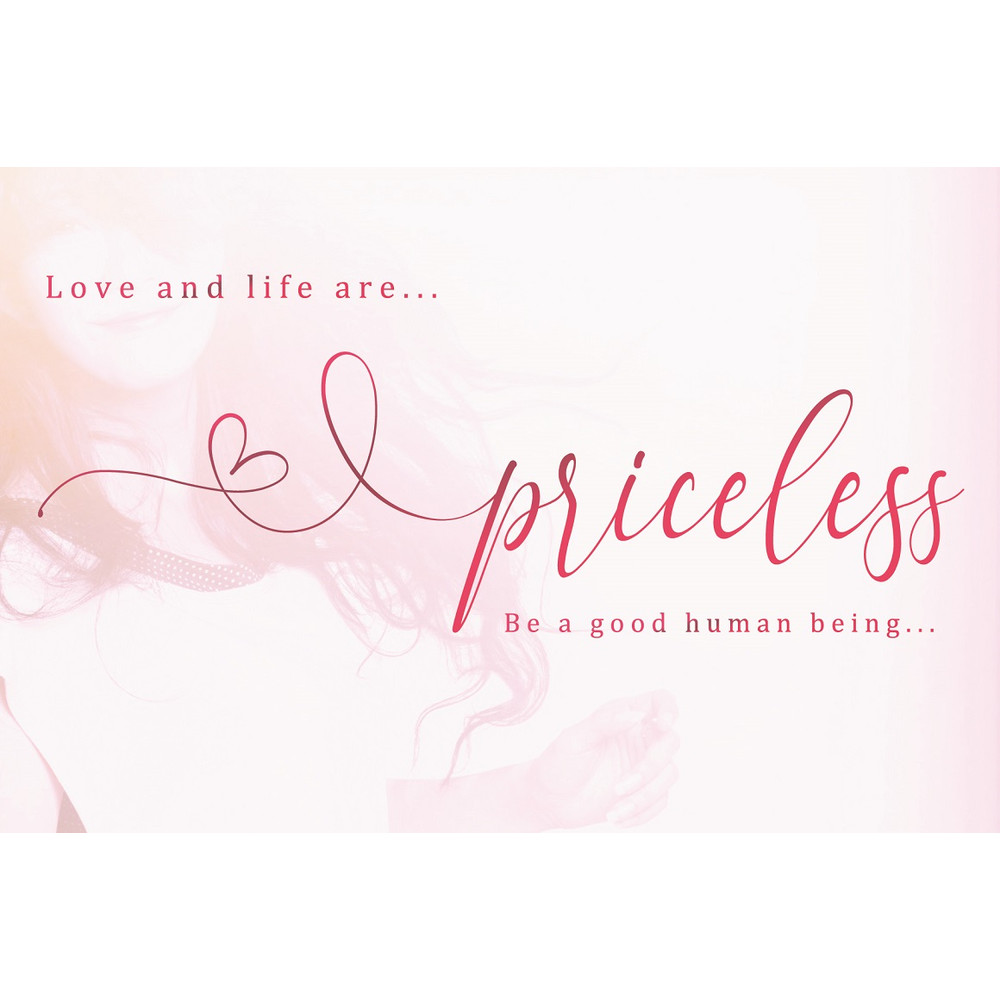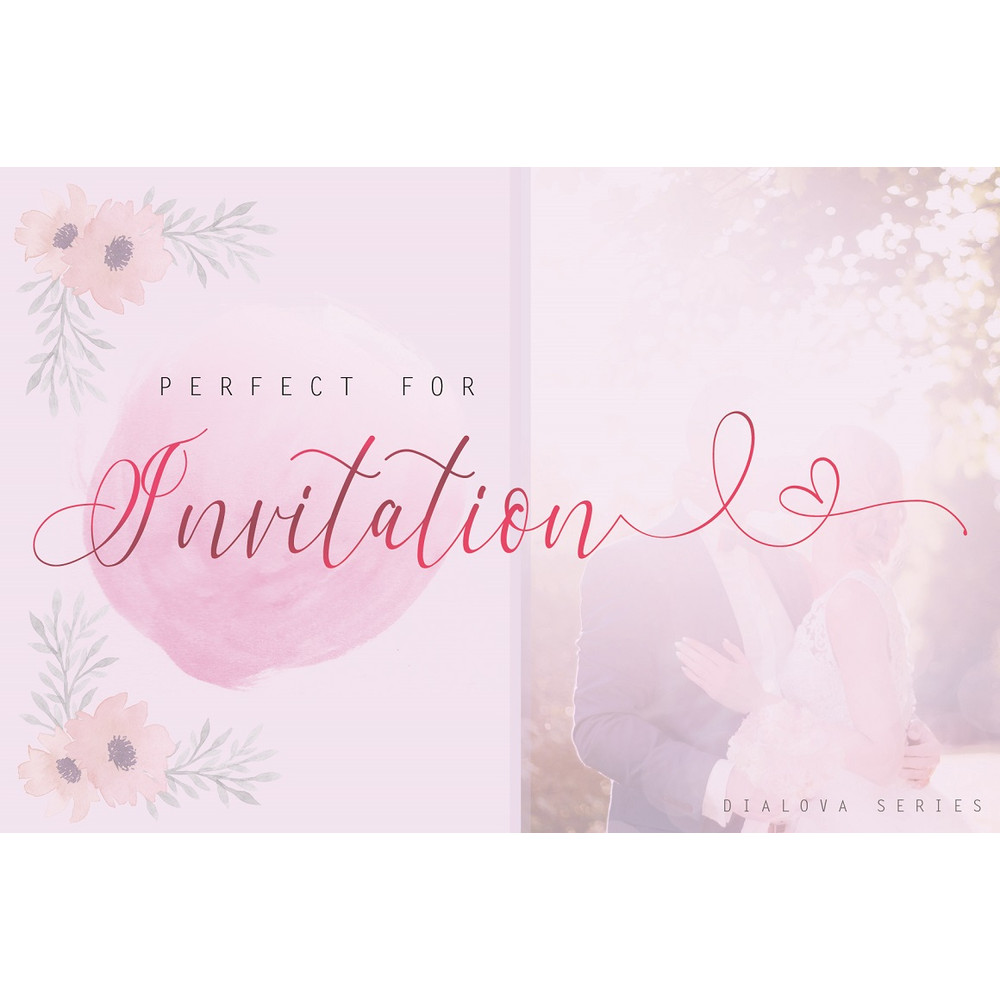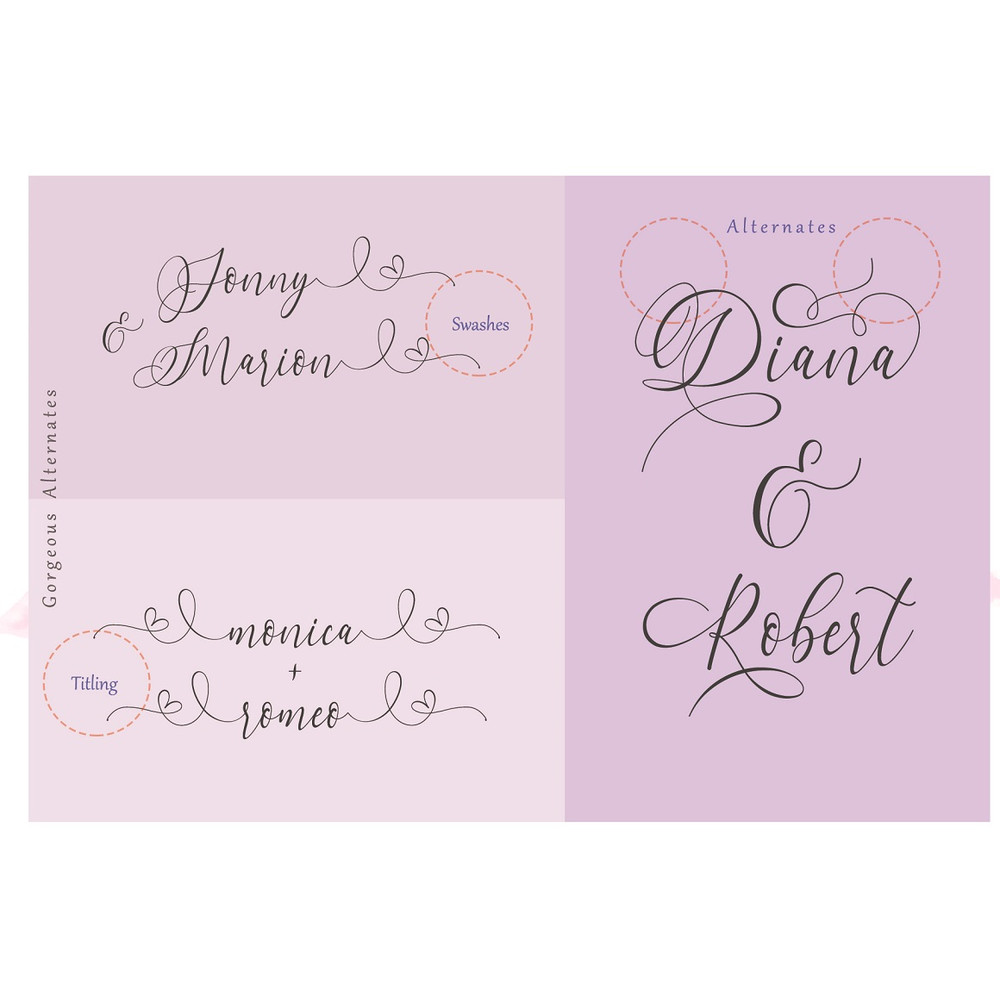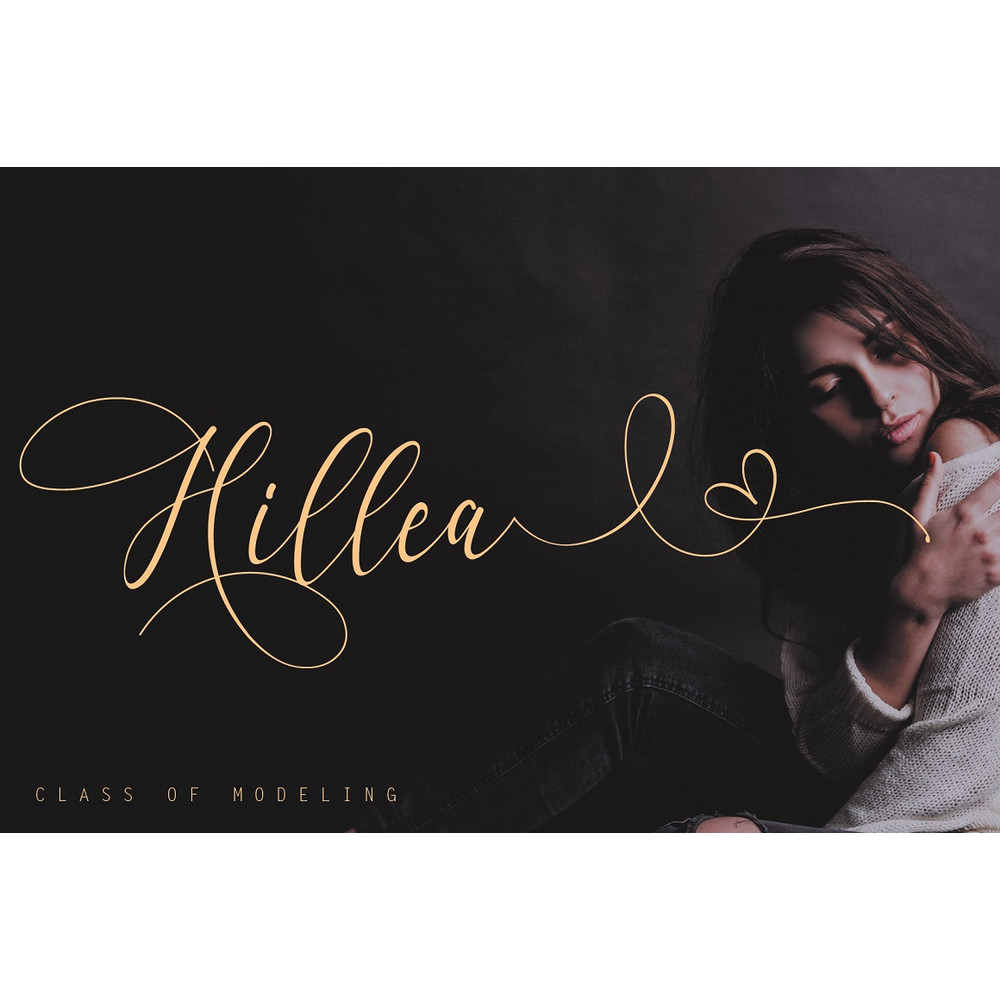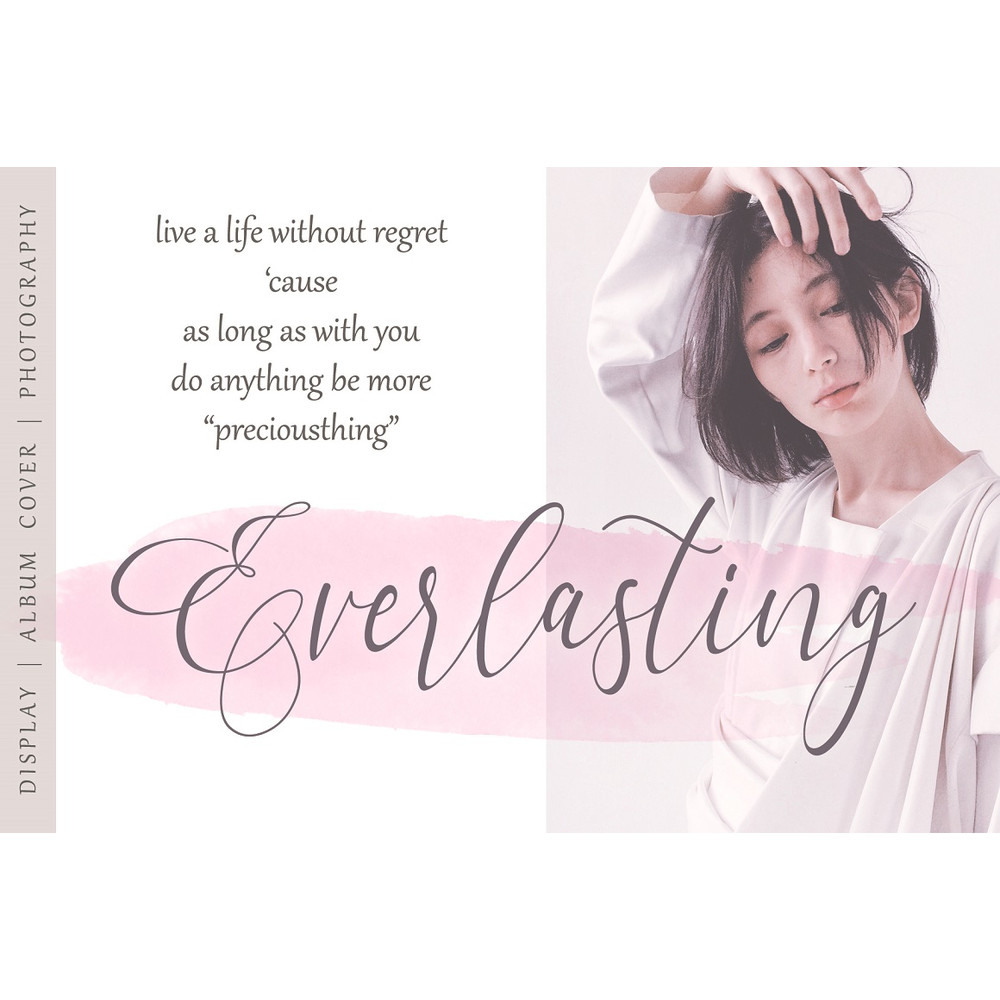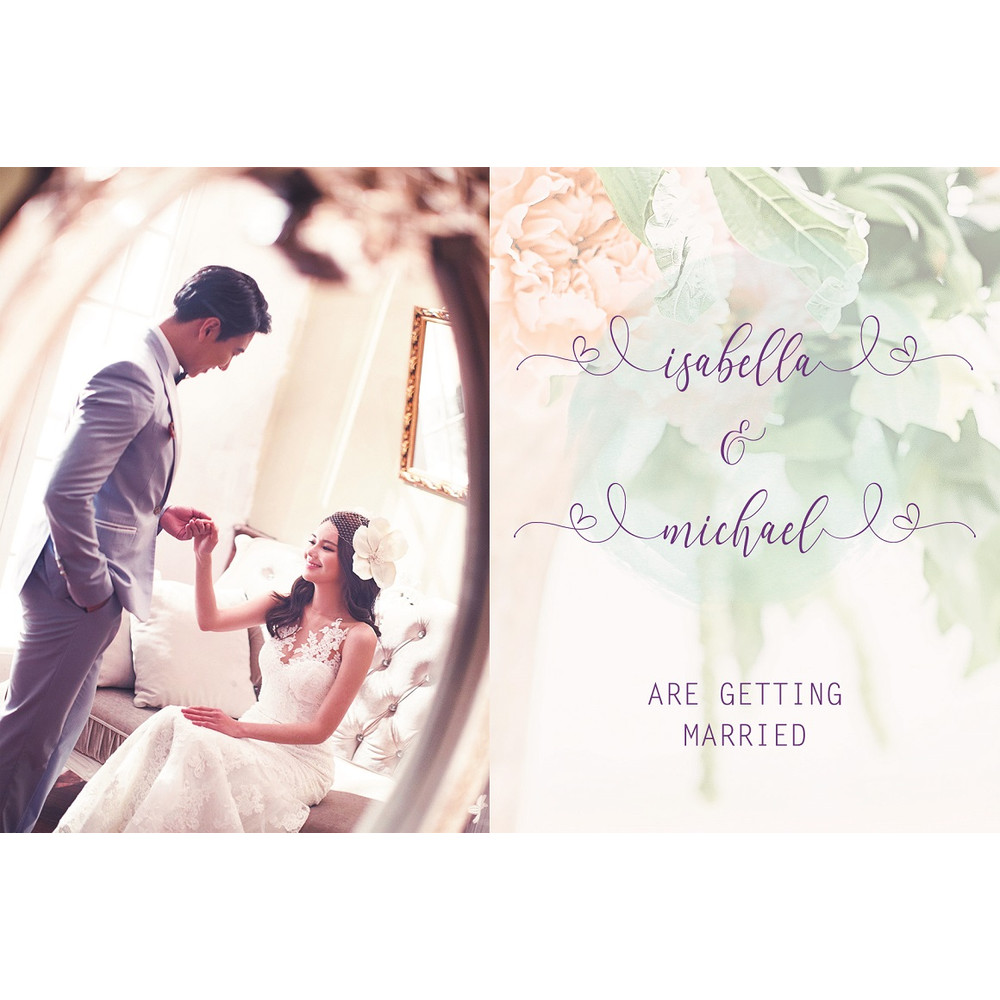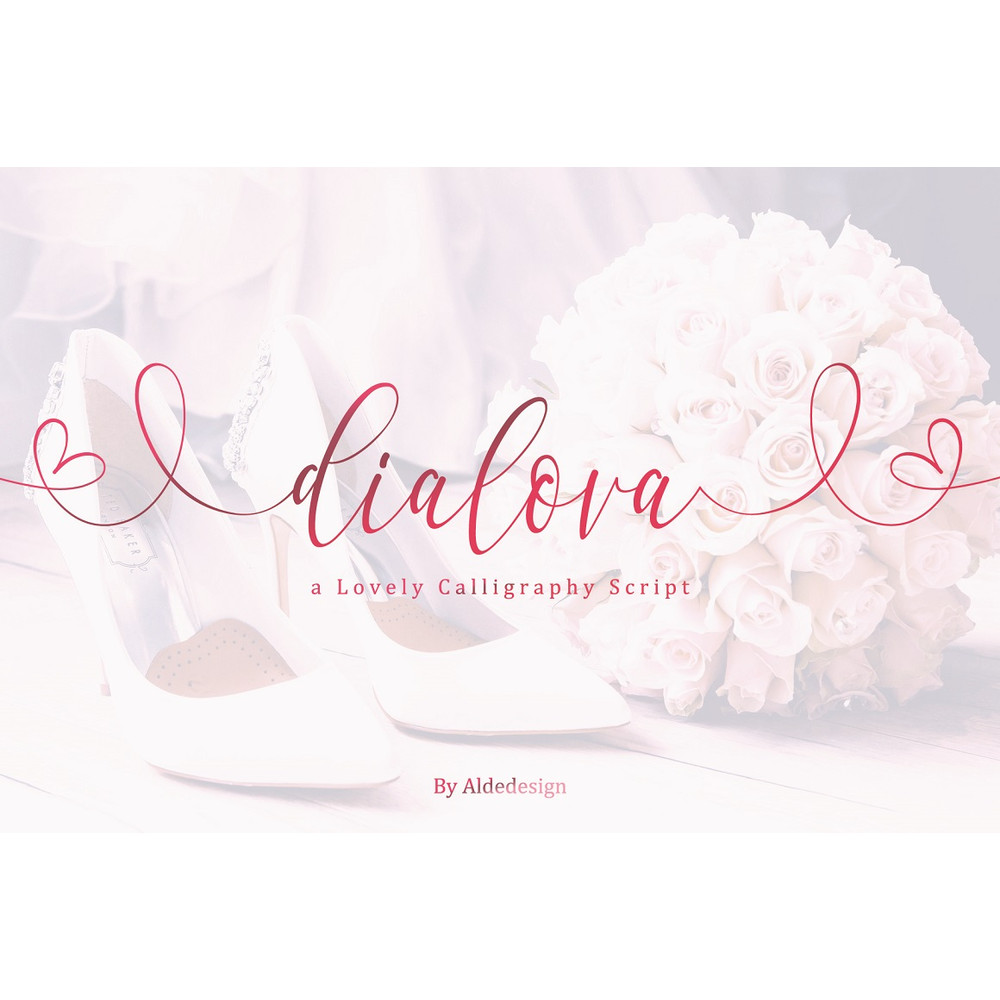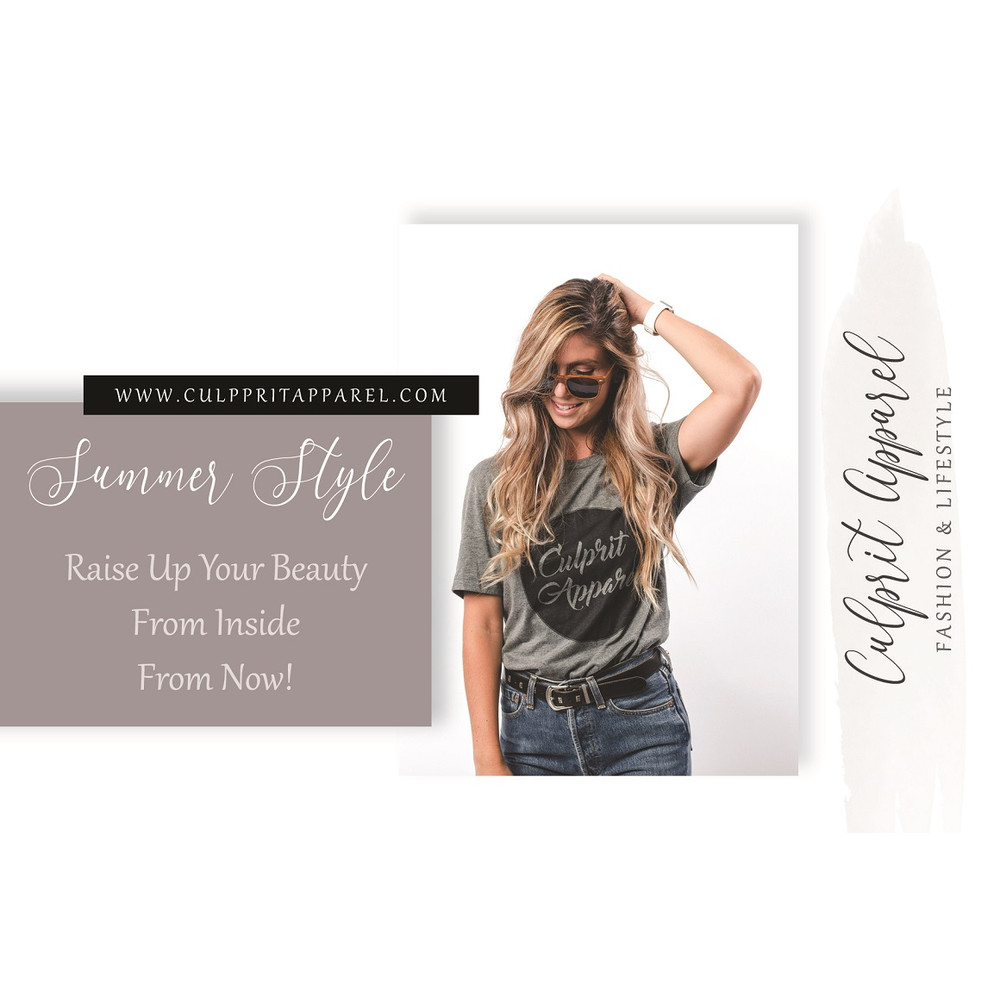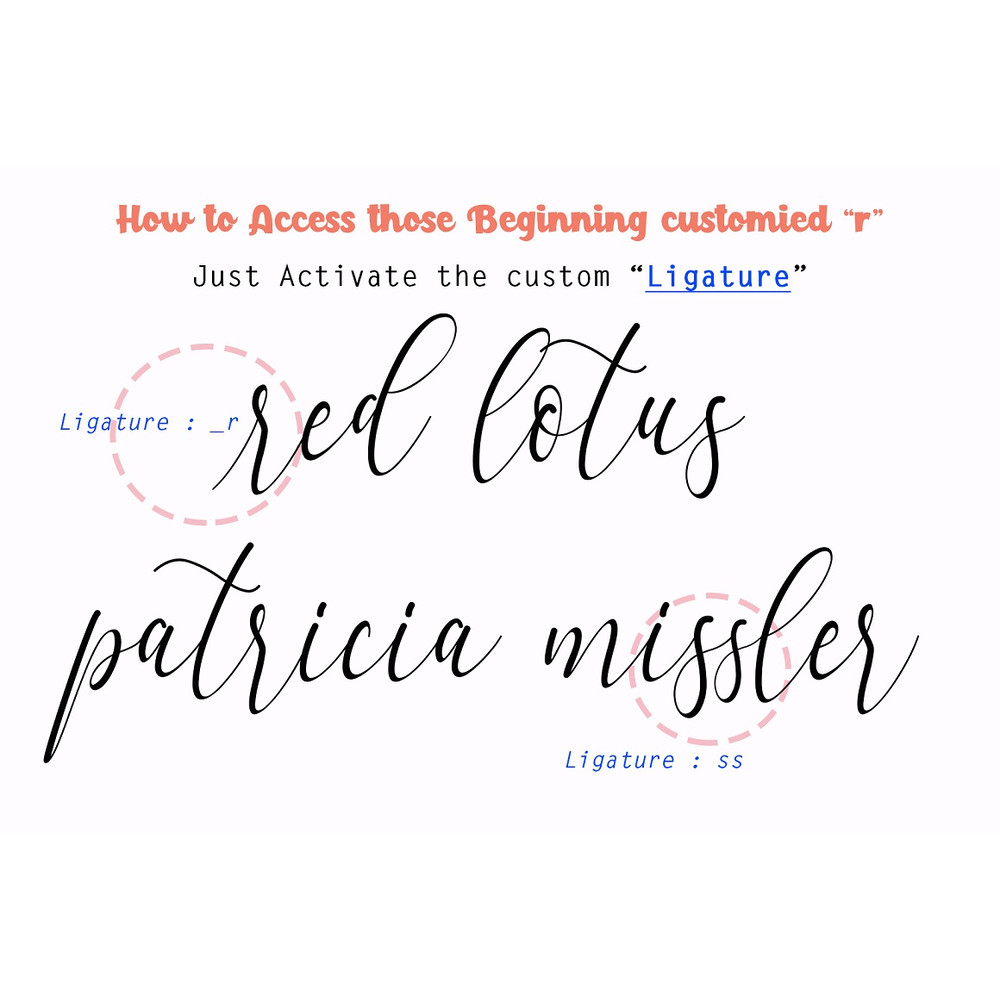
Hello font lovers, let me introduce our newest calligraphy font, Dialova – Calligraphy Script
This is a stylish calligraphy script font with gorgeous swash, titling, and alternates. This font also easy to use. and has touch of elegance and modernity for your designs or branding, it can be used for various purposes such as headings, signature, logos, wedding invitation, t-shirt, letterhead, signage, lable, news, posters, badges etc.